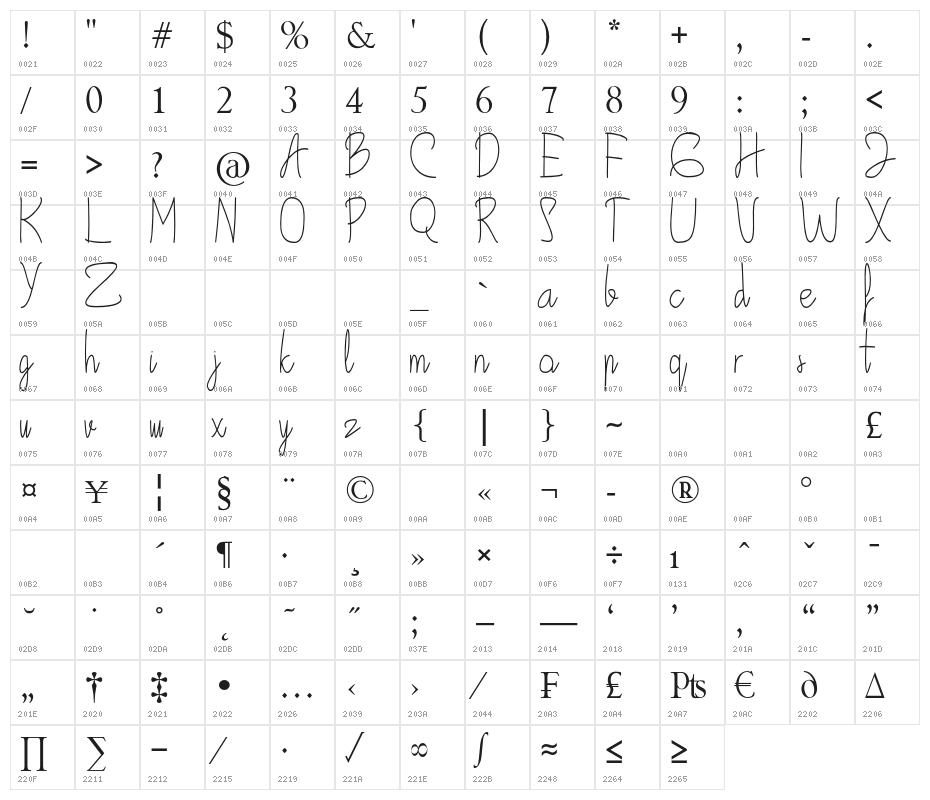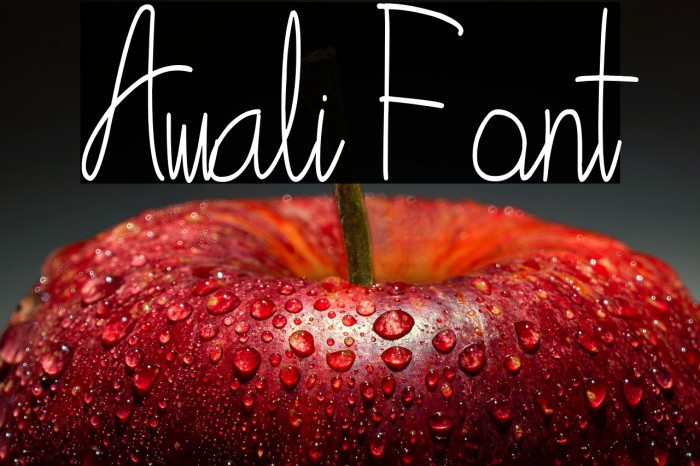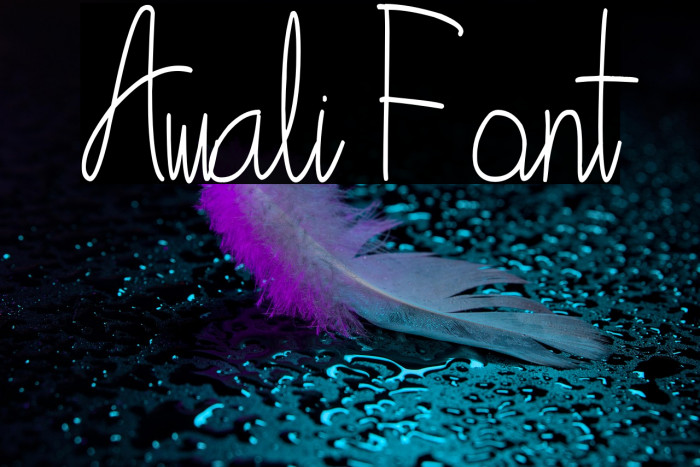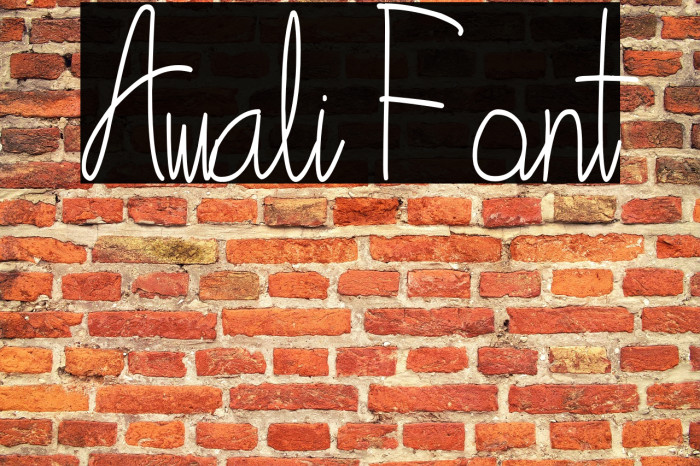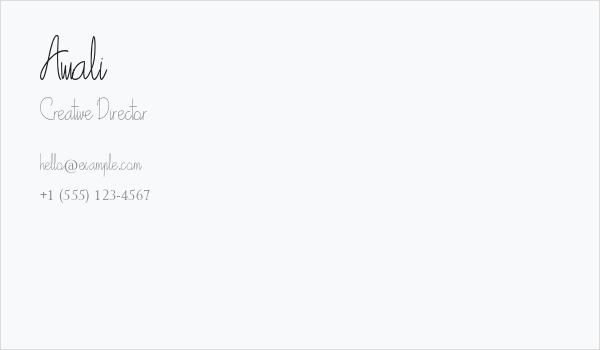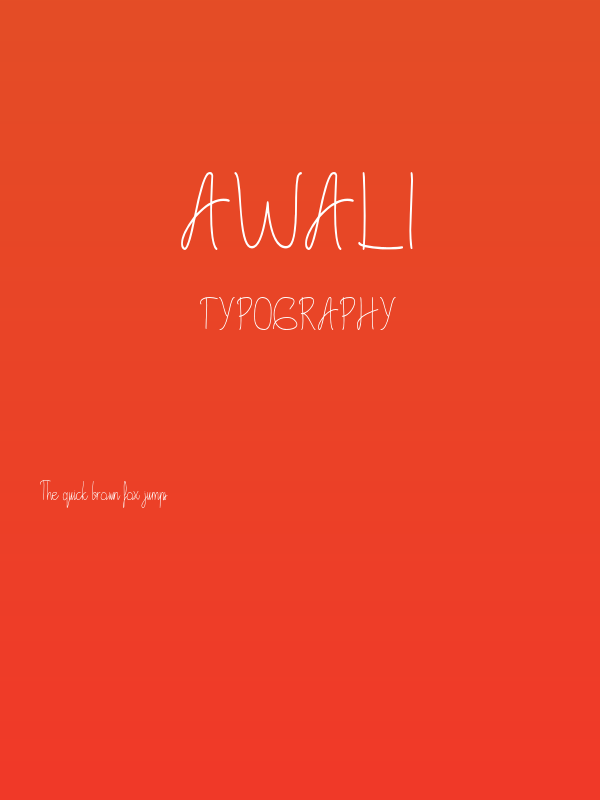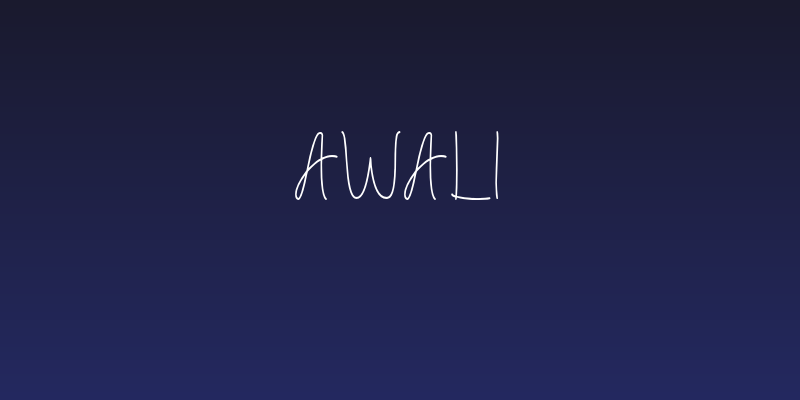
Awali Font
Awali Description
This font features a unique blend of handwritten and decorative elements, characterized by its flowing, cursive-like uppercase and lowercase letters. The uppercase letters exhibit a playful, whimsical style with elongated strokes and loops, giving it a lively and dynamic appearance. The lowercase letters maintain a consistent flow, with some letters connecting seamlessly, enhancing its handwritten aesthetic. The numerals are bold and clear, providing a nice contrast to the more delicate letterforms. Special characters are creatively designed, maintaining the overall playful and artistic theme. This font is perfect for projects that require a personal touch or a creative flair.
| Use Case | Logos, Invitations, Creative projects |
| Proposed Projects | Ideal for greeting cards, invitations, personal branding, and creative projects that require a whimsical touch. |